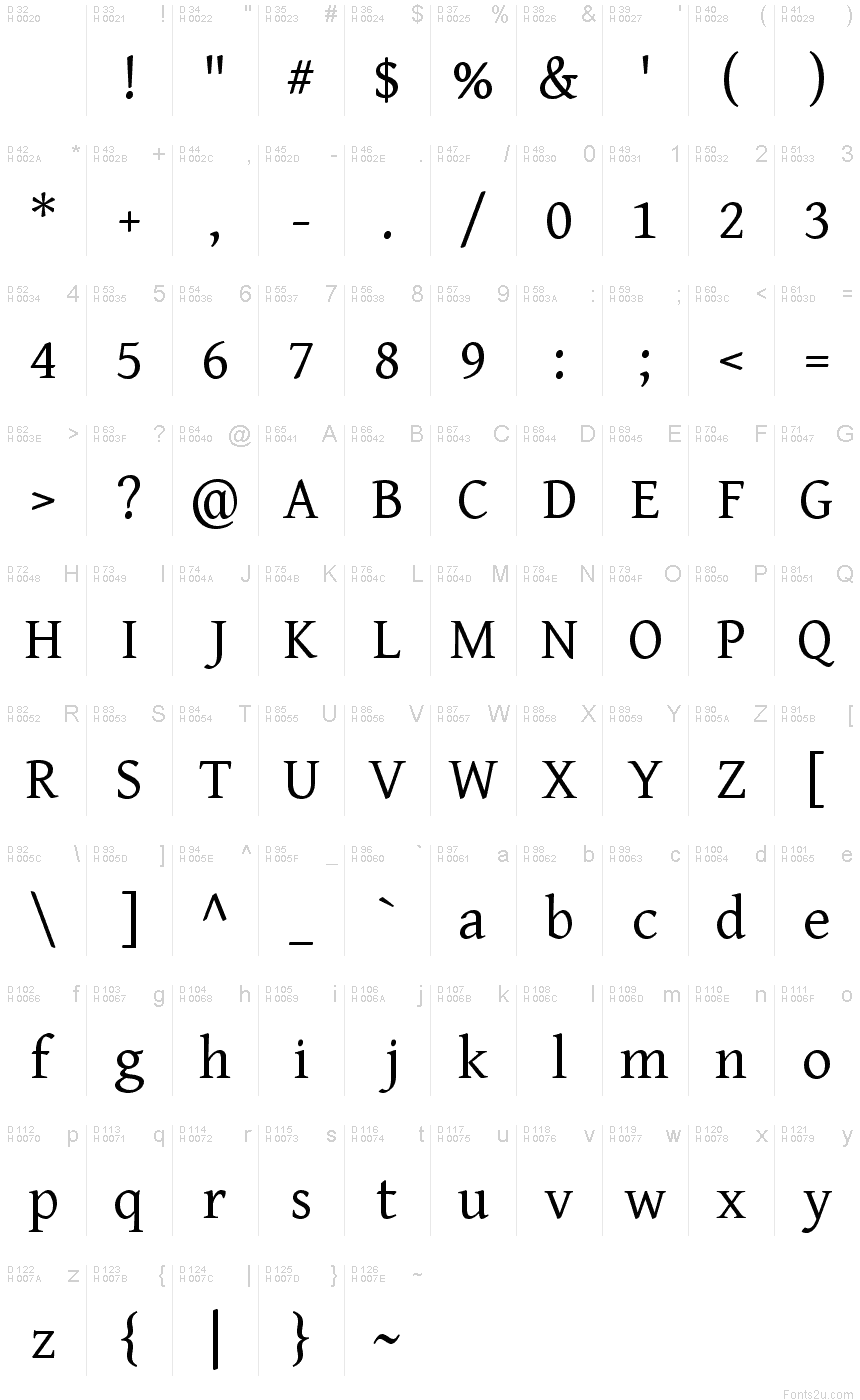
GentiumAlt
Gentium Alt font by Sil International is a free serif typeface that gives text a calm, bookish presence without feeling stuffy. Its gently flared strokes, open counters, and slightly calligraphic curves create a warm texture on the page, readable at both small and large sizes. The rhythm feels like classic print—quietly authoritative, with just enough personality to keep long passages from turning flat or tiring.
Using Gentium Alt, body copy flows smoothly in essays, academic papers, reports, long-form blogs, and ebooks, while still holding its own in pull quotes, captions, and understated logos. This free font shines in projects that need a scholarly, human touch—think journals, literary magazines, and cultural institutions. For a balanced hierarchy, set GentiumAlt for text and pair it with a clean geometric sans for headings.